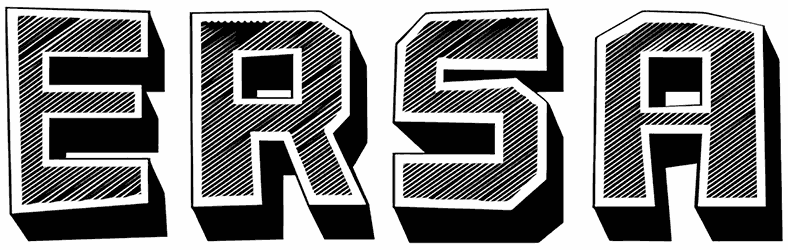
Ersa Font
Ersa is an old-school font that comes in bold and thick characters. It can be a perfect host for various projects such as book covers, banners, video games, and many other things. Keep in mind that this retro block font doesn’t offer lowercase letters and punctuation. Just give it a shot, and it will bring a classic vibe to your text design.